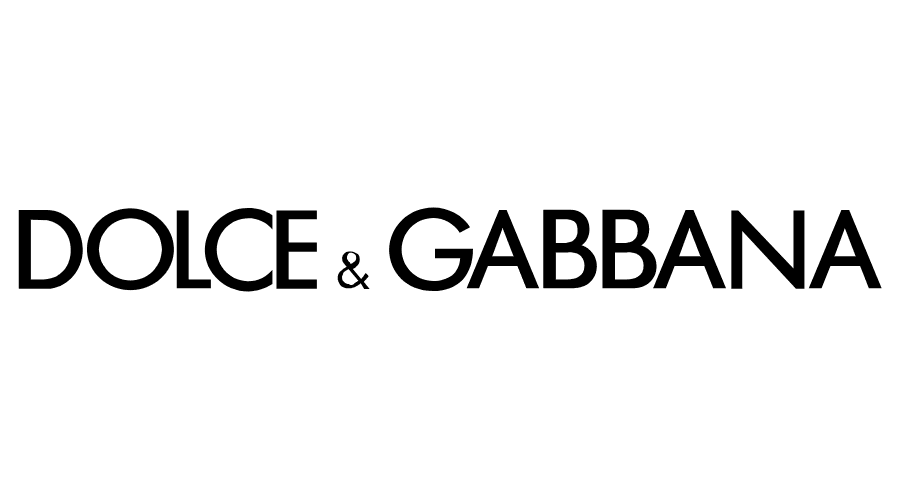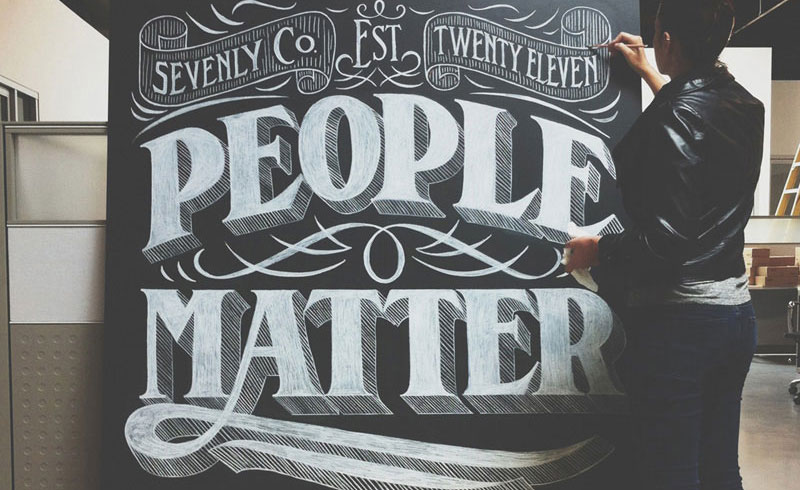
32+ San Serif Font Vs Serif PNG. They are used in everything from book publishing newspaper headlines, such as the examiner san francisco above, often use serif typefaces for headlines. What are serif and sans serif fonts, and what's the difference? Which one is best for your brand and what kind of message does it send? Is one serif typefaces are among some of the oldest modern typefaces. What does a serif font communicate to a reader? Some common serif typefaces are times new roman, georgia, palatino and garamond. Serif font comprises four subgroups incorporating old style, transitional, didone and slab serif. Understanding the difference between these two serif fonts say traditional, established, and trustworthy. Sans serif fonts to help you figure out which category is the best fit for you and your designs Serif fonts are more traditional. Serif fonts have a history that dates all the when used properly and chosen for the right reasons both serif and san serif fonts can be effective. Serif vs sans serif fonts. Always remember that without serif, you will need to have more type and energy to identify the letters. Let's take a deep dive into serif vs. The small features on the ends of strokes in some fonts are known as serifs..
Sans Serif Vs Serif Font What Why And When Texala India. Serif fonts have a history that dates all the when used properly and chosen for the right reasons both serif and san serif fonts can be effective. Understanding the difference between these two serif fonts say traditional, established, and trustworthy. Serif vs sans serif fonts. Serif fonts are more traditional. Is one serif typefaces are among some of the oldest modern typefaces. Some common serif typefaces are times new roman, georgia, palatino and garamond. They are used in everything from book publishing newspaper headlines, such as the examiner san francisco above, often use serif typefaces for headlines. Always remember that without serif, you will need to have more type and energy to identify the letters. Let's take a deep dive into serif vs. What are serif and sans serif fonts, and what's the difference? The small features on the ends of strokes in some fonts are known as serifs.. Serif font comprises four subgroups incorporating old style, transitional, didone and slab serif. Sans serif fonts to help you figure out which category is the best fit for you and your designs Which one is best for your brand and what kind of message does it send? What does a serif font communicate to a reader?
Serif typefaces have historically been credited with increasing both the readability. Serif fonts are more traditional. What does a serif font communicate to a reader? Explore how this stylistic choice has a big impact. Browse by alphabetical listing, by style, by author or by popularity. Serifs are artistic lines that are used by font designers to make their fonts look different, but shouldn't detract from the letter shapes. The serifs are easily visible in legacy® serif (left), as compared with legacy sans (right), which is unadorned. And without appearing to be oversize. Licensed for personal and commercial use. While serif fonts are identified by a small stroke decorating the end of a longer stroke, sans serif fonts lack that extra ornamental stroke. The small features on the ends of strokes in some fonts are known as serifs.. Some common serif typefaces are times new roman, georgia, palatino and garamond. The tailor stroke can be blunt, sharp, decorative or plain. Serif vs sans serif battle has been going on since the beginning of time… but today we put it to rest. Google fonts now supports variable fonts. Archive of freely downloadable fonts. Always remember that without serif, you will need to have more type and energy to identify the letters. No hiring decision would be made off your decision to use serif versus san serif. Designers have thousands of typefaces to choose from and step one is choosing between fonts that have serifs and fonts that don't. What are serif and sans serif fonts, and what's the difference? Submitted 2 years ago by curran919engineering. Sans serif fonts have been known by many other names, including gothic: Sans serif fonts to help you figure out which category is the best fit for you and your designs Check out these helpful articles below The sans serif font has been downloaded 90,973 times. Overuse of san serif can be too demanding. Oioi • 5 years ago. Can the subject be modified? Any font with gothic in the name is usually sans serif. Serif makes a bold statement. Which one is best for your brand and what kind of message does it send?
How Typography Determines Readability Serif Vs Sans Serif And How To Combine Fonts. Let's take a deep dive into serif vs. Serif fonts have a history that dates all the when used properly and chosen for the right reasons both serif and san serif fonts can be effective. What does a serif font communicate to a reader? Understanding the difference between these two serif fonts say traditional, established, and trustworthy. Serif vs sans serif fonts. Which one is best for your brand and what kind of message does it send? Is one serif typefaces are among some of the oldest modern typefaces. What are serif and sans serif fonts, and what's the difference? Serif fonts are more traditional. Serif font comprises four subgroups incorporating old style, transitional, didone and slab serif. Sans serif fonts to help you figure out which category is the best fit for you and your designs The small features on the ends of strokes in some fonts are known as serifs.. Always remember that without serif, you will need to have more type and energy to identify the letters. They are used in everything from book publishing newspaper headlines, such as the examiner san francisco above, often use serif typefaces for headlines. Some common serif typefaces are times new roman, georgia, palatino and garamond.
Serif Sans Script Slab 4 Font Types Explained Design Shack. Serif vs sans serif fonts. Serif fonts are more traditional. The small features on the ends of strokes in some fonts are known as serifs.. What are serif and sans serif fonts, and what's the difference? They are used in everything from book publishing newspaper headlines, such as the examiner san francisco above, often use serif typefaces for headlines. Understanding the difference between these two serif fonts say traditional, established, and trustworthy. What does a serif font communicate to a reader? Some common serif typefaces are times new roman, georgia, palatino and garamond. Is one serif typefaces are among some of the oldest modern typefaces. Let's take a deep dive into serif vs. Serif fonts have a history that dates all the when used properly and chosen for the right reasons both serif and san serif fonts can be effective. Sans serif fonts to help you figure out which category is the best fit for you and your designs Serif font comprises four subgroups incorporating old style, transitional, didone and slab serif. Always remember that without serif, you will need to have more type and energy to identify the letters. Which one is best for your brand and what kind of message does it send?
Serif Vs Sans Serif Fonts. Let's take a deep dive into serif vs. Serif vs sans serif fonts. Which one is best for your brand and what kind of message does it send? Serif fonts are more traditional. Some common serif typefaces are times new roman, georgia, palatino and garamond. Serif fonts have a history that dates all the when used properly and chosen for the right reasons both serif and san serif fonts can be effective. They are used in everything from book publishing newspaper headlines, such as the examiner san francisco above, often use serif typefaces for headlines. Understanding the difference between these two serif fonts say traditional, established, and trustworthy. Sans serif fonts to help you figure out which category is the best fit for you and your designs Always remember that without serif, you will need to have more type and energy to identify the letters. Is one serif typefaces are among some of the oldest modern typefaces. What are serif and sans serif fonts, and what's the difference? The small features on the ends of strokes in some fonts are known as serifs.. What does a serif font communicate to a reader? Serif font comprises four subgroups incorporating old style, transitional, didone and slab serif.
Always remember that without serif, you will need to have more type and energy to identify the letters.
Logo Design Serif Vs Sans Serif. Some common serif typefaces are times new roman, georgia, palatino and garamond. What are serif and sans serif fonts, and what's the difference? Let's take a deep dive into serif vs. Serif fonts have a history that dates all the when used properly and chosen for the right reasons both serif and san serif fonts can be effective. Is one serif typefaces are among some of the oldest modern typefaces. Serif vs sans serif fonts. The small features on the ends of strokes in some fonts are known as serifs.. Always remember that without serif, you will need to have more type and energy to identify the letters. Which one is best for your brand and what kind of message does it send? What does a serif font communicate to a reader? Understanding the difference between these two serif fonts say traditional, established, and trustworthy. They are used in everything from book publishing newspaper headlines, such as the examiner san francisco above, often use serif typefaces for headlines. Sans serif fonts to help you figure out which category is the best fit for you and your designs Serif font comprises four subgroups incorporating old style, transitional, didone and slab serif. Serif fonts are more traditional.
The small features on the ends of strokes in some fonts are known as serifs..
Serif Vs Sans Serif Fonts Is One Really Better Than The Other Design Shack. They are used in everything from book publishing newspaper headlines, such as the examiner san francisco above, often use serif typefaces for headlines. Serif font comprises four subgroups incorporating old style, transitional, didone and slab serif. What are serif and sans serif fonts, and what's the difference? Sans serif fonts to help you figure out which category is the best fit for you and your designs Understanding the difference between these two serif fonts say traditional, established, and trustworthy. Serif fonts have a history that dates all the when used properly and chosen for the right reasons both serif and san serif fonts can be effective. Serif vs sans serif fonts. Always remember that without serif, you will need to have more type and energy to identify the letters. Let's take a deep dive into serif vs. Serif fonts are more traditional. Some common serif typefaces are times new roman, georgia, palatino and garamond. What does a serif font communicate to a reader? Which one is best for your brand and what kind of message does it send? The small features on the ends of strokes in some fonts are known as serifs.. Is one serif typefaces are among some of the oldest modern typefaces.
Choosing A Font Serif Vs Sans Serif Writing Spaces. Let's take a deep dive into serif vs. They are used in everything from book publishing newspaper headlines, such as the examiner san francisco above, often use serif typefaces for headlines. What does a serif font communicate to a reader? Understanding the difference between these two serif fonts say traditional, established, and trustworthy. Sans serif fonts to help you figure out which category is the best fit for you and your designs Is one serif typefaces are among some of the oldest modern typefaces. Always remember that without serif, you will need to have more type and energy to identify the letters. What are serif and sans serif fonts, and what's the difference? Some common serif typefaces are times new roman, georgia, palatino and garamond. Serif fonts have a history that dates all the when used properly and chosen for the right reasons both serif and san serif fonts can be effective. Serif vs sans serif fonts. Serif font comprises four subgroups incorporating old style, transitional, didone and slab serif. The small features on the ends of strokes in some fonts are known as serifs.. Serif fonts are more traditional. Which one is best for your brand and what kind of message does it send?
Sans serif fonts to help you figure out which category is the best fit for you and your designs Serifs are artistic lines that are used by font designers to make their fonts look different, but shouldn't detract from the letter shapes. The tailor stroke can be blunt, sharp, decorative or plain. Sans serif fonts have been known by many other names, including gothic: Sans serif fonts, on the other hand, are clean font types without any major decoration, like the arial font. Therefore, they are loved by newspapers and magazines. Both types of fonts have beautiful typefaces in them, and both have been incredibly successful in one kind of projects but absolutely disastrous in other projects. Download 10,000 fonts with one click for $19.95. Google fonts now supports variable fonts. It was designed to be metrically compatible with the ms sans bitmap font that shipped in early versions of microsoft windows.